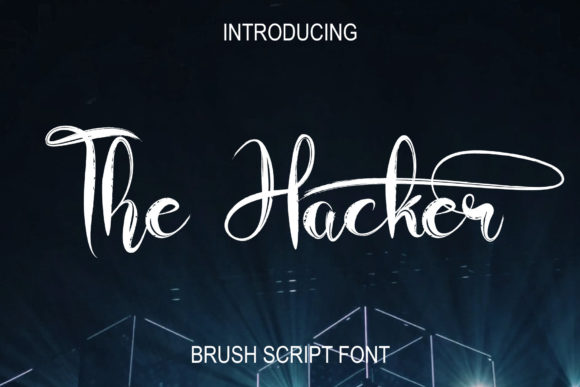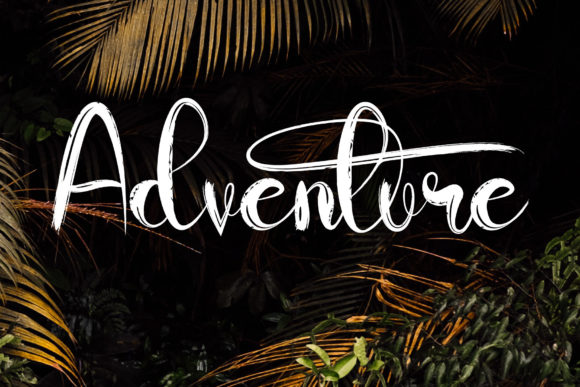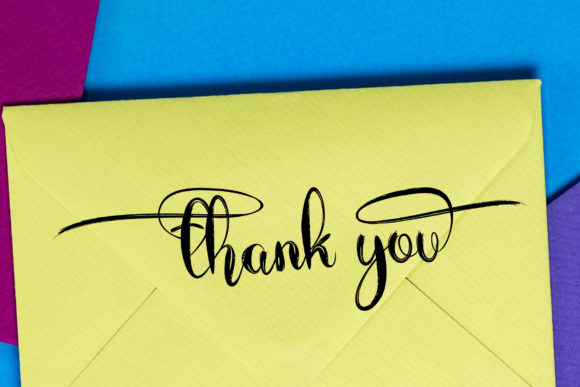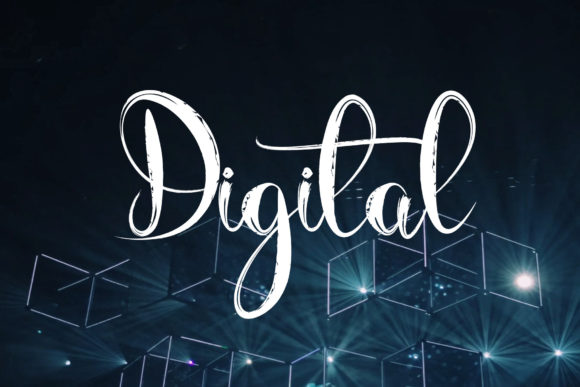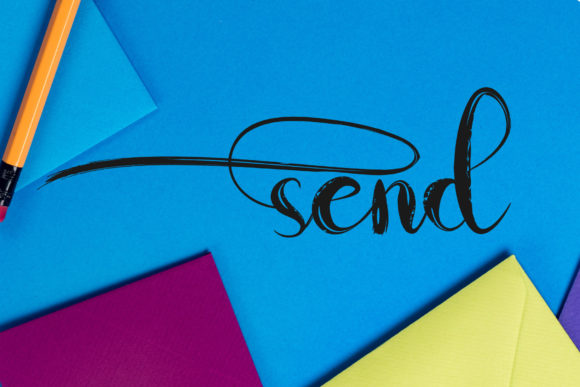
The Hacker Font
The Hacker is a magical script font carefully created with a touch of elegance. Whether you’re looking for fonts for Instagram or calligraphy scripts for DIY projects, this font will turn any creative idea into a true piece of art!
The Hacker is PUA encoded which means you can access all of the glyphs and swashes with ease!